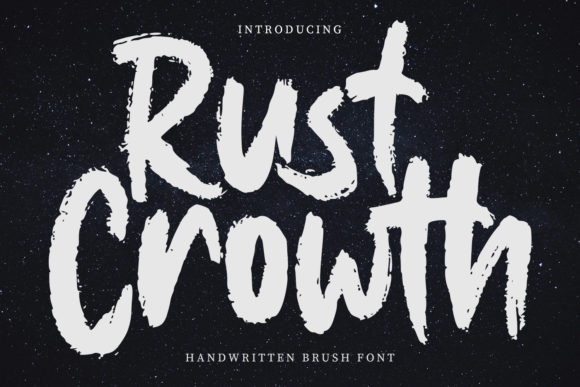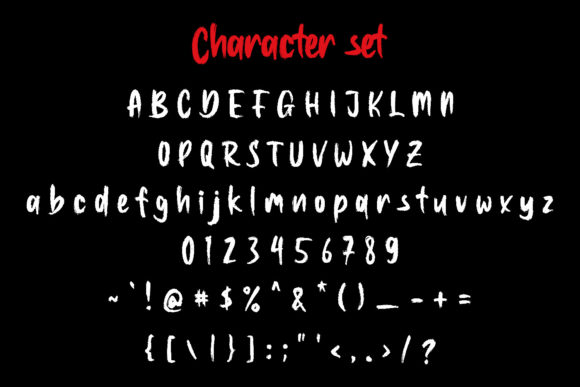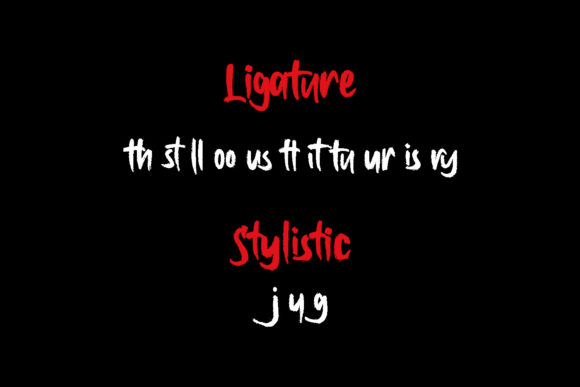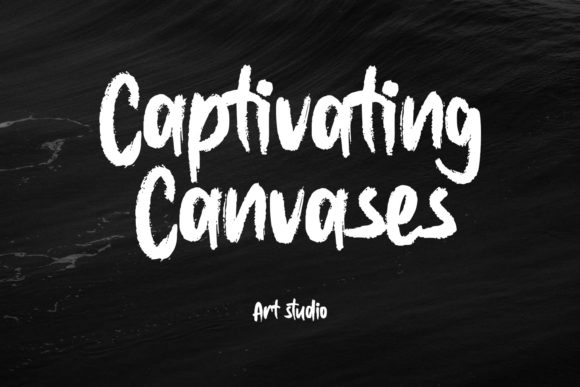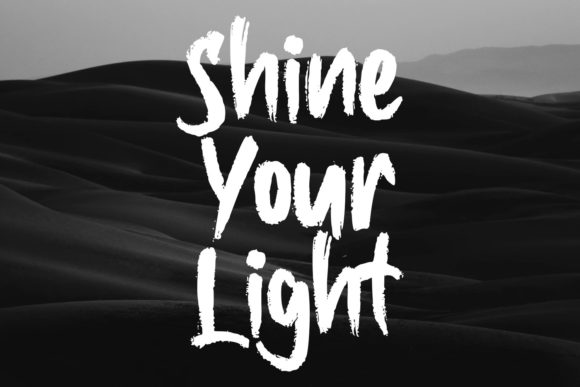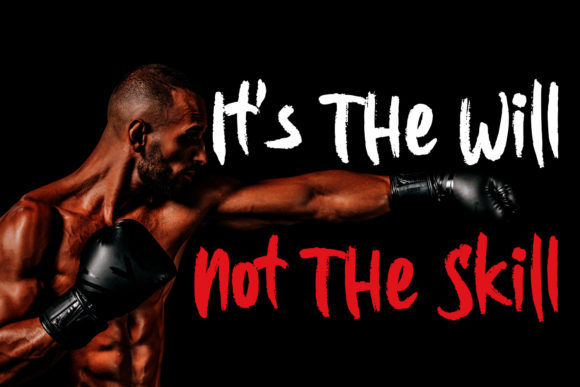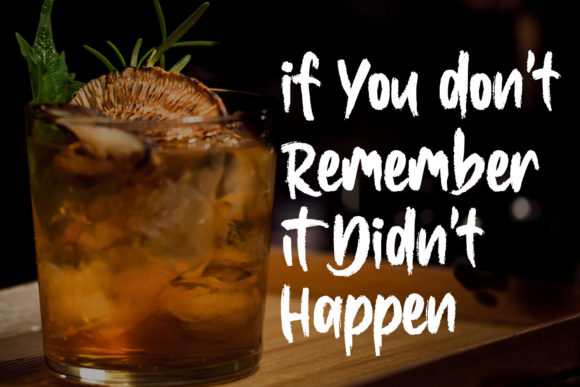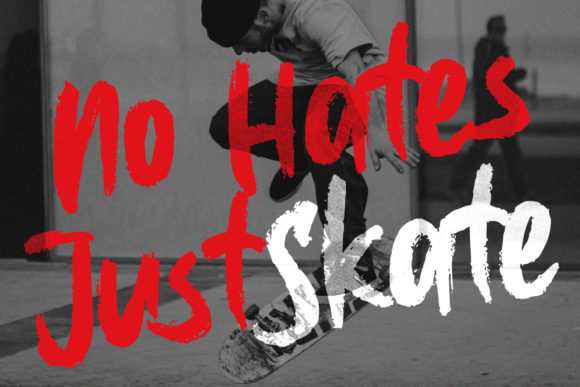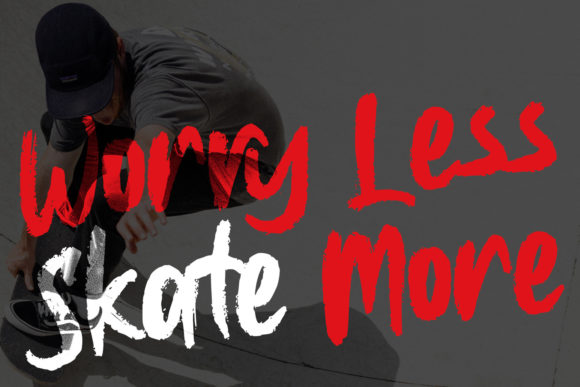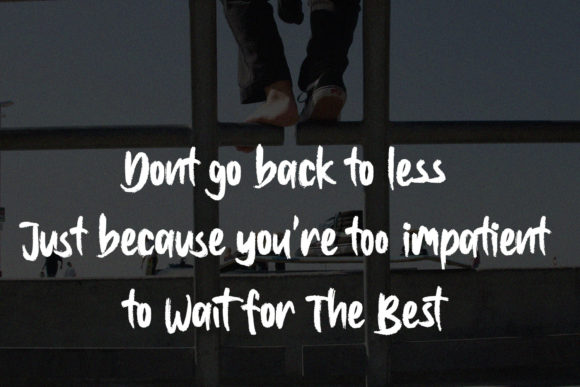
Rust Crowth Font
About Rust Crowth Font
Introducing Rust Crowth, a unique handwritten brush font. This font is characterized by its regular rough brush strokes, which create a sense of authenticity and creativity. It’s not just a font, it’s a tool that brings your designs to life.
The characters in Rust Crowth are fun and dynamic, adding a touch of personality to your designs. The font also includes ligatures and alternates, giving you the flexibility to customize your text to suit your design needs.
Rust Crowth is versatile and can be used in a variety of design projects. It’s perfect for logo design, where it can help your brand stand out and make a strong impression. It’s also great for social media posts, where its unique style can catch the eye and engage your audience.
Movie titles and book titles can benefit from Rust Crowth as well. The font’s distinctive style can make your titles pop and draw in your audience. Whether your text is short or long, Rust Crowth can handle it. The font maintains its readability and charm no matter the length of the text.
One of the best features of Rust Crowth is its compatibility with other fonts. It works great as a secondary text, complementing a sans or serif font. This allows you to create designs with depth and contrast, enhancing the overall aesthetic of your work.
In conclusion, Rust Crowth is more than just a font. It’s a design asset that can elevate your work and make it stunning. Whether you’re designing a logo, crafting a social media post, or creating a movie title, Rust Crowth can help you achieve your design goals. So why wait? Start creating stunning work with Rust Crowth today!